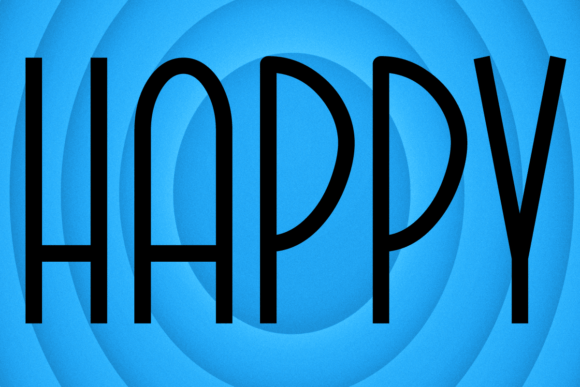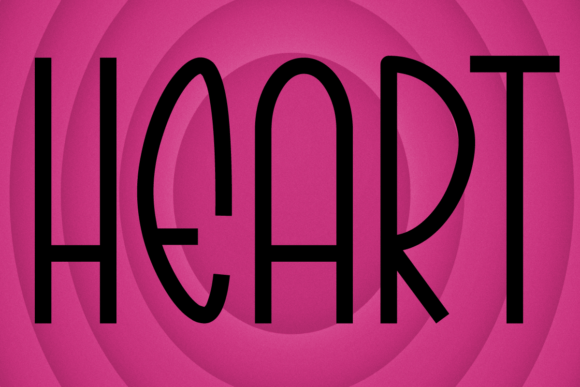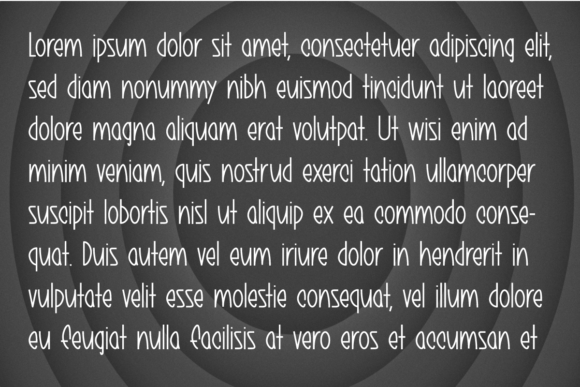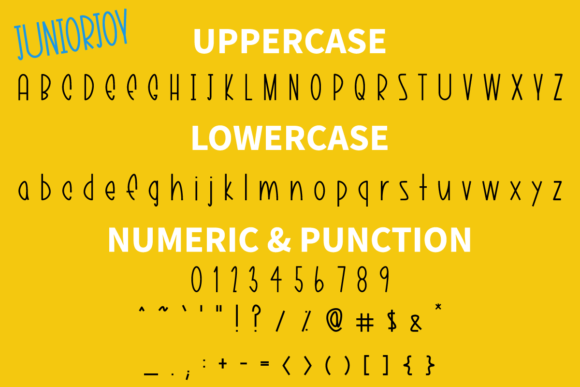
Introduction to Juniorjoy Font
Do you remember that moment when you stumbled upon the perfect font, and it just clicked? For designers, that ‘aha’ moment is what makes all the hard work worth it. It’s the moment when you know you’ve found a design resource that will elevate your creative project to the next level. And that’s exactly what Juniorjoy Font is – a fun and friendly handwritten font that will brighten up each of your designs.
With its whimsical and quirky feel, Juniorjoy Font is the perfect addition to any project. Whether you’re working on a logo, wedding invitation, or advertisement, this typeface is sure to bring a smile to your face. And the best part? It’s easy to use, even with a transparent background, making it a great choice for designers of all levels.
Key Features of Juniorjoy Font
- Unique, handcrafted design that adds a touch of personality to your creative project.
- Perfect for use in digital design, including website headers, social media graphics, and print materials.
Honest Review: Juniorjoy Font
I recently had the chance to work with the Juniorjoy Font on a creative project and I must say, it’s been a game-changer. This font is a fantastic addition to any designer’s toolkit, offering a unique blend of elegance and playfulness.
Here are some of the things that I think work really well with the Juniorjoy Font: ✨
- Its versatility: The Juniorjoy Font can be used for a wide range of projects, from children’s books to marketing materials.
- Its high-quality design: The font is crisp, clear, and beautifully crafted.
- Limited character set: While the font is free to download, it’s not a full-featured font with a comprehensive character set.
- No bold or italic weights: If you need to emphasize text, you may need to use a different font.
Overall, I’m really impressed with the Juniorjoy Font. It’s a high-quality design resource that can add a lot of creativity and style to your projects. With its versatility and beautiful design, I highly recommend giving it a try!
The Juniorjoy Font is suitable for various creative projects, including logos, posters, flyers, and business cards. It’s also a great choice for designers looking for a high-quality font with a transparent background for free download.